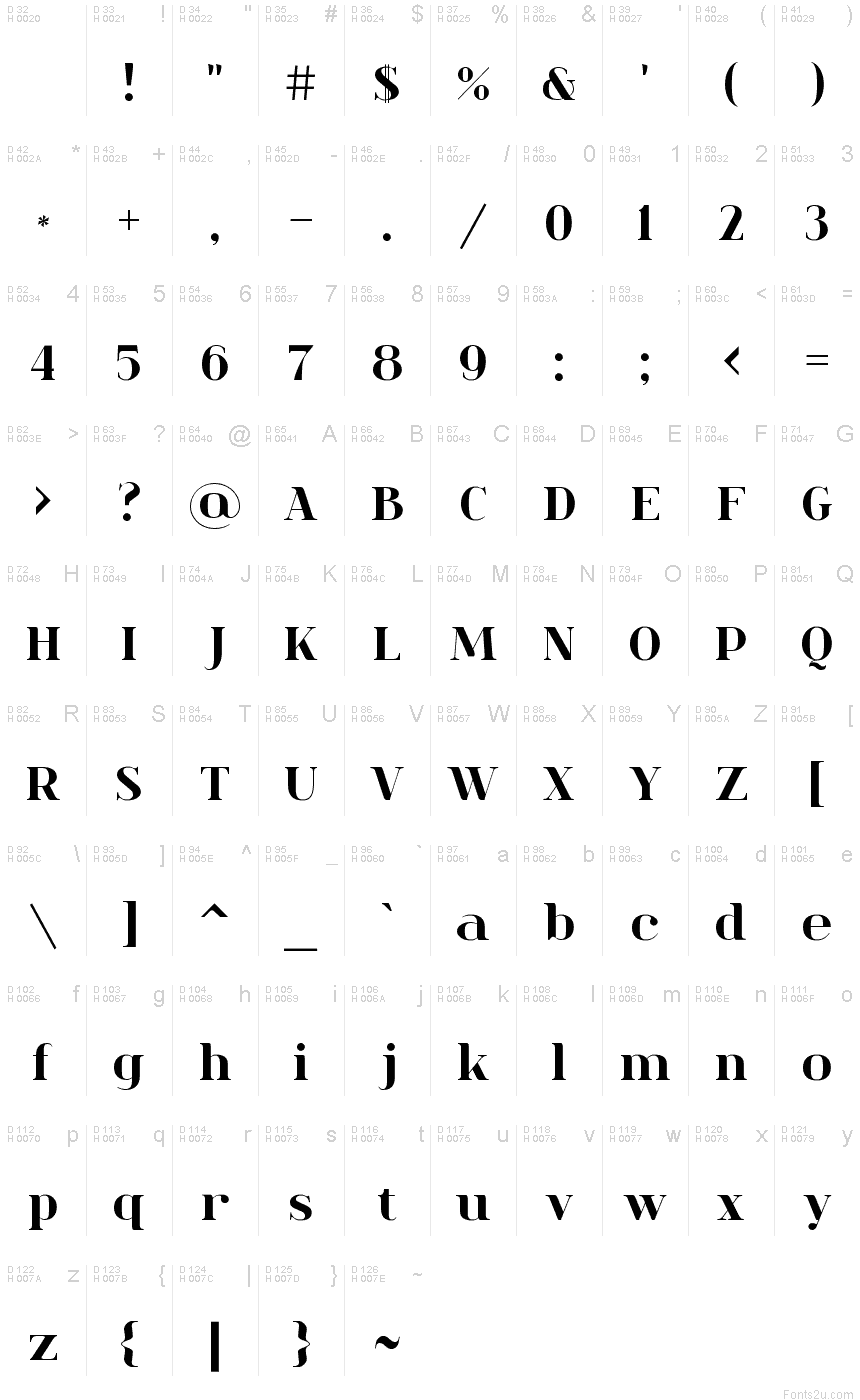
spinwerad Bold
Spinwerad Bold by gluk is a free high-contrast serif display font with broad, rounded forms and hairline joins. Its oversized curves, needle-thin serifs, and tightly fitted letters create an unusually dense silhouette, softened by smooth, swelling contours.
The theatrical side of fashion editorial design is its natural territory, especially magazine covers, beauty packaging, and boutique branding that can echo the lettering's sweeping curves in photography or ornament. It also speaks to culture publications and style-conscious labels aimed at readers in art and fashion markets who favor expressive typography over restrained classicism.